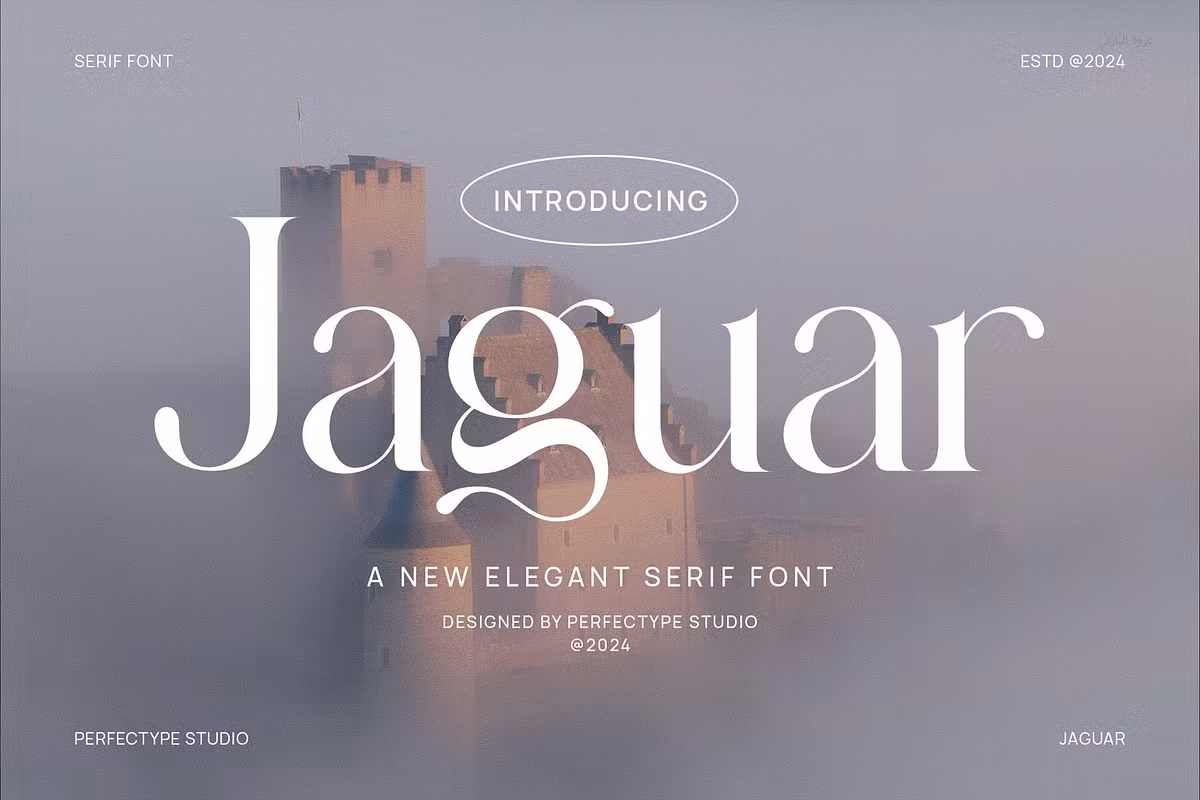
Jaguar Elegant Serif Font Typeface Free Download
The Jaguar Elegant Serif Font Typeface Free Download is a refined and sophisticated font that combines classic serif styling with a modern twist. With its sharp, clean lines and graceful curves, this font is perfect for high-end branding, luxury logos, editorial designs, and sophisticated print projects. The Jaguar typeface adds a touch of elegance and professionalism to any project, making it ideal for business materials, fashion branding, and premium websites. Whether you're designing for luxury brands, magazines, or corporate marketing, this font will bring a polished and timeless look to your typography. Please note, for commercial use, a license purchase is required. However, you can easily download the Jaguar Elegant Serif Font Typeface Free Download for free for personal use and explore its creative potential. Download the Jaguar Elegant Serif Font Typeface Free Download today and elevate your designs with this elegant, modern serif font.